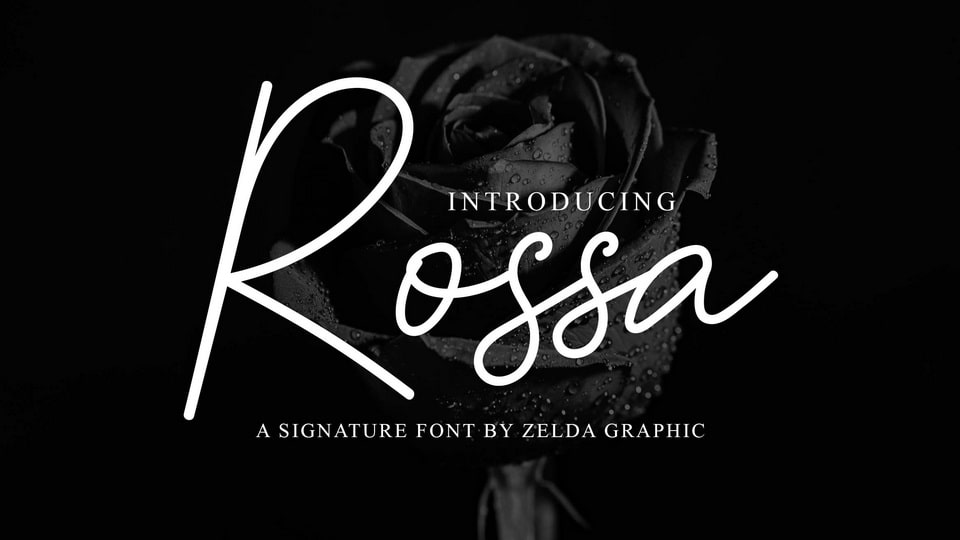
Download Rossa font a modern and awesome monoline script with a natural style. Rossa font is suitable for your current or classic design: signature, logo, branding, invitation, blog headline and many more.
Designer: Zelda Graphic